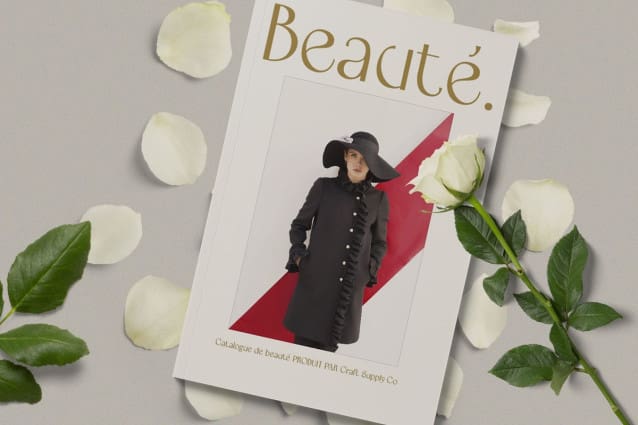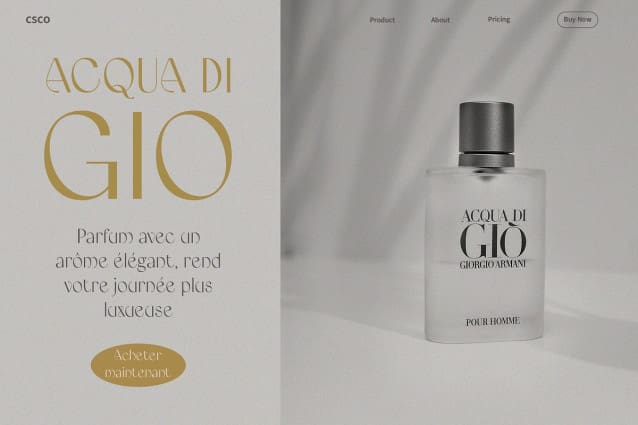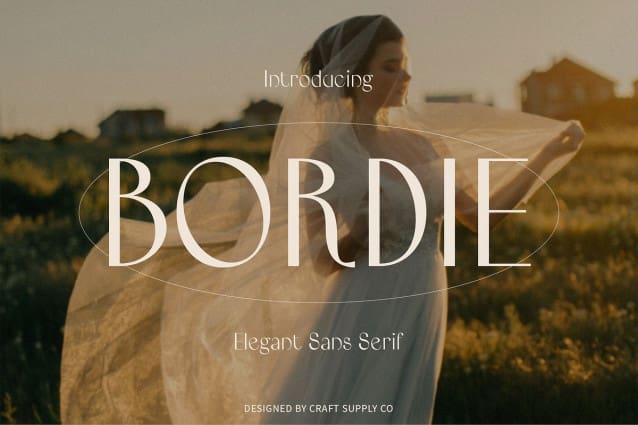
Bordie Font
Bordie Font, a font inspired by editorial finesse, brings the sophistication of magazines to your fingertips. Its modern aesthetics redefine elegance in serif typography.
Contemporary Allure With a touch of contemporary allure, Bordie Font offers a sleek and stylish presence, making it the perfect choice for projects where a modern vibe is paramount.
Versatile Sophistication This font seamlessly combines versatility and sophistication, ensuring a timeless quality that adapts effortlessly to various design contexts.
Impressively Modern Bordie isn’t just a font; it’s a statement of modernity. Each character reflects a commitment to staying relevant, making it an impressive choice for those seeking a contemporary edge.
Conclusion In the realm of modern serif fonts, Bordie stands as a beacon of sophistication, embracing the essence of editorial design while exuding contemporary charm. Elevate your projects with the refined allure of Bordie.